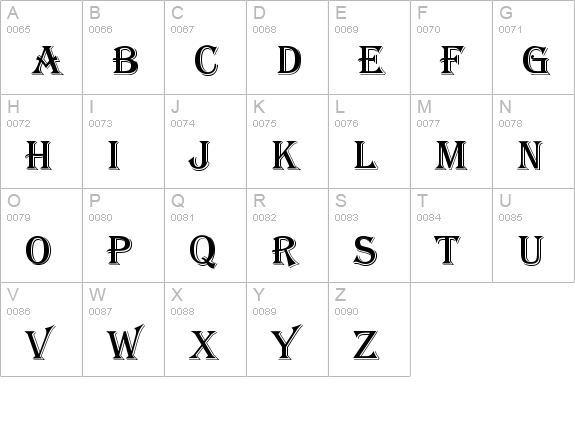
Saskatchewan Font Details
Saskatchewan font offers a unique blend of elegance and modernity, making it the perfect choice for both professional and creative projects. Its sleek and sophisticated letterforms effortlessly capture attention and create a lasting impression. With its clean lines and balanced proportions, Saskatchewan font exudes a sense of versatility, allowing it to be used in a wide range of applications. But what truly sets Saskatchewan font apart is its accessibility. This font is available to everyone free of charge, making it an invaluable asset for designers, students, and enthusiasts alike. Whether you're working on a personal project or a commercial endeavor, Saskatchewan font offers the flexibility and quality you need to bring your ideas to life. Finding the perfect font can often be a daunting task, but with Saskatchewan font, the search is over. This font is freely available to download at FontsMarket.com, a trusted platform that offers a vast collection of high-quality fonts. By choosing Saskatchewan font, you not only gain access to a visually stunning typeface, but also the peace of mind that comes with knowing it is readily accessible without any financial barriers. Embrace the beauty of Saskatchewan font and elevate your designs to new heights. Its clean and contemporary aesthetic, combined with its free availability, make it a must-have for any design toolkit. Whether you're designing a logo, creating a website, or crafting a stunning presentation, Saskatchewan font is sure to leave a lasting impression. Experience the power of this exceptional typeface and unlock your creative potential today.